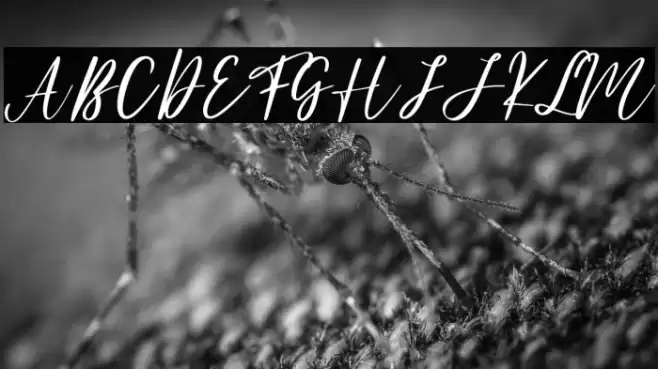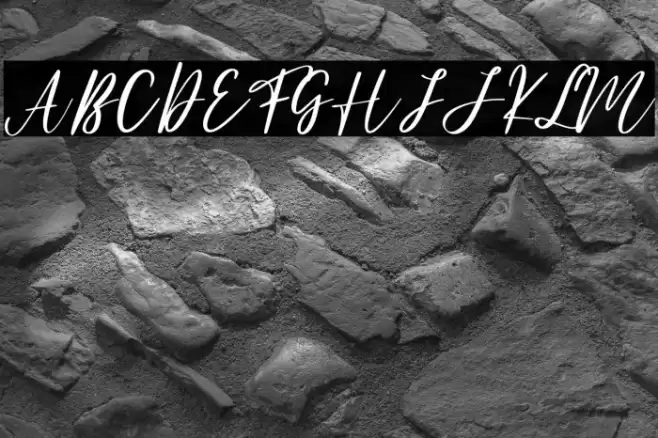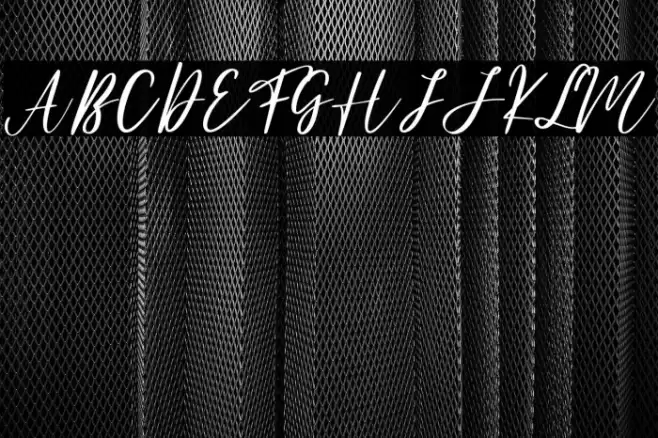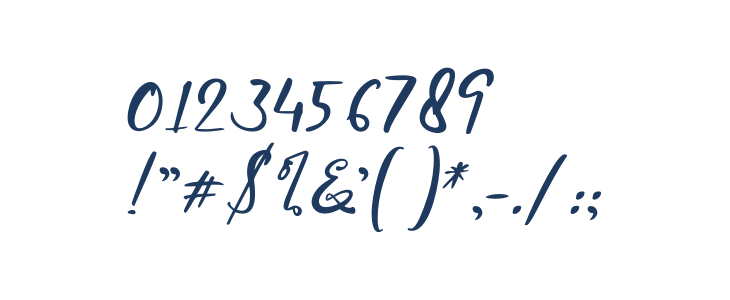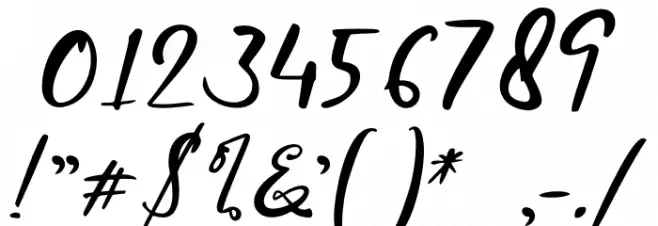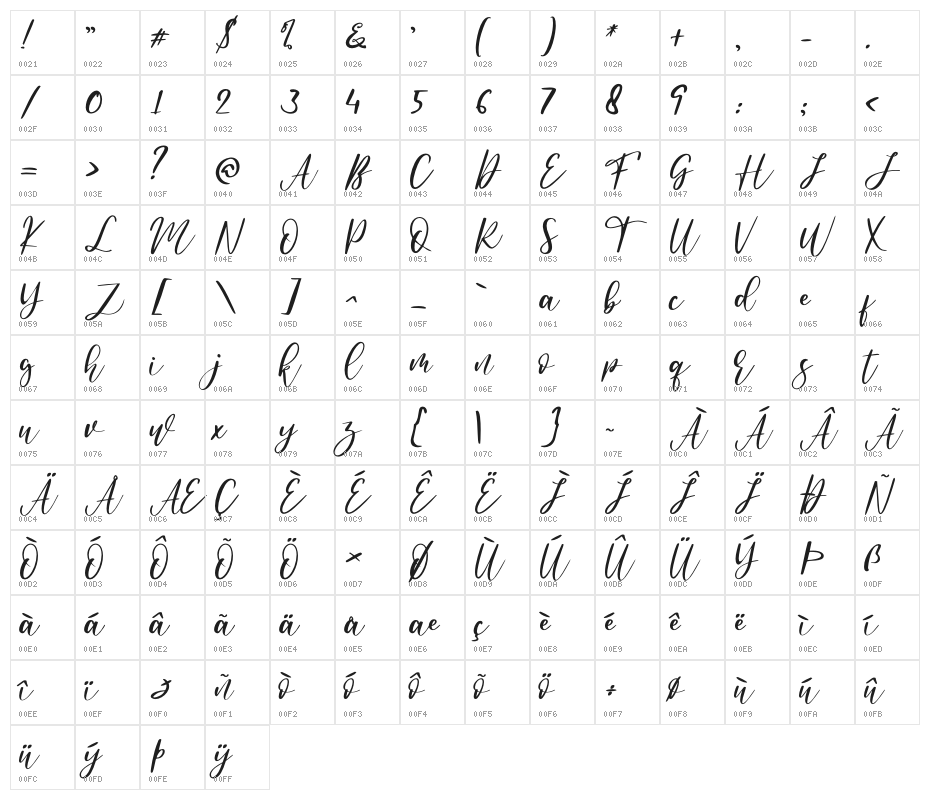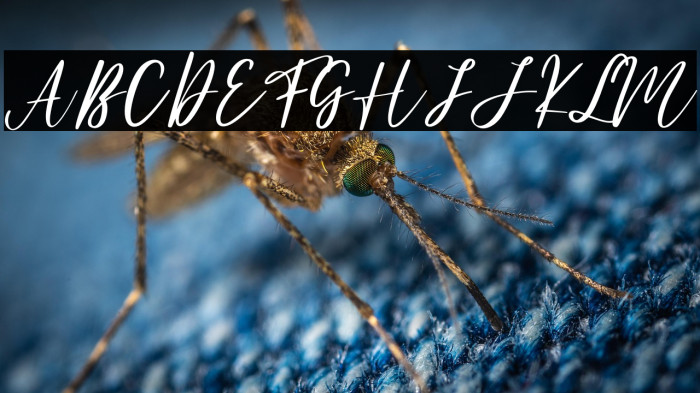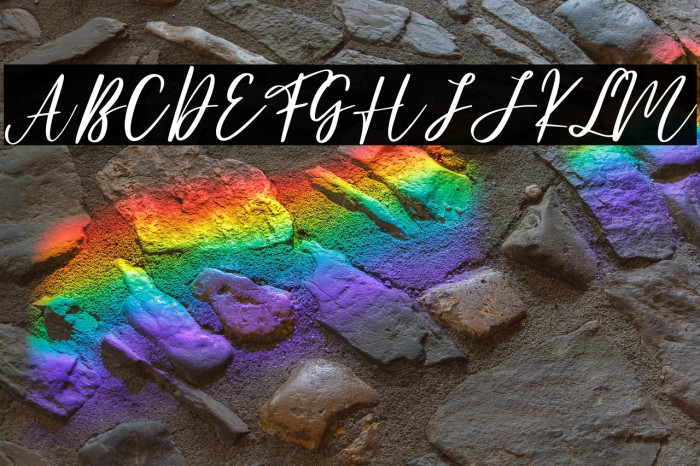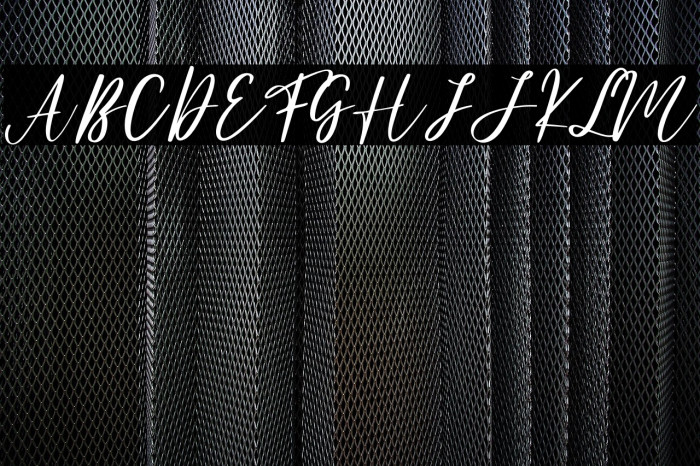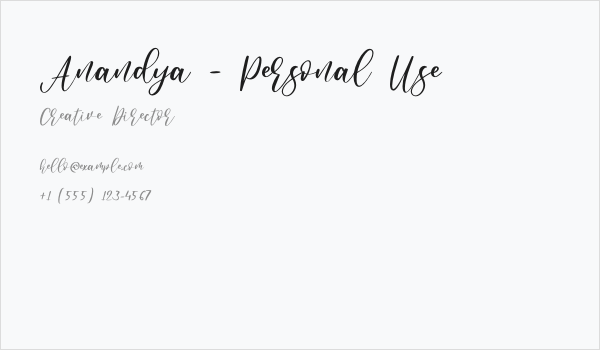
Anandya - Personal Use Font
This font features a lively and flowing script style, characterized by its elegant, cursive letterforms. The uppercase letters are tall and graceful, with sweeping lines and loops that convey a sense of movement and sophistication. The lowercase letters maintain a consistent flow, with smooth connections between each character, enhancing its handwritten appearance. The numerals are bold and slightly slanted, complementing the overall style. Special characters are creatively integrated, adding a playful touch to the font. The strokes vary in thickness, providing a dynamic contrast that enhances readability while maintaining an artistic flair.
A lively, flowing script font with elegant cursive letterforms and dynamic contrast from Uncategorized fonts.
- Proposed Projects: Ideal for wedding invitations, greeting cards, branding projects, and elegant signage.
- Use Case: Logos, Invitations, Greeting Cards